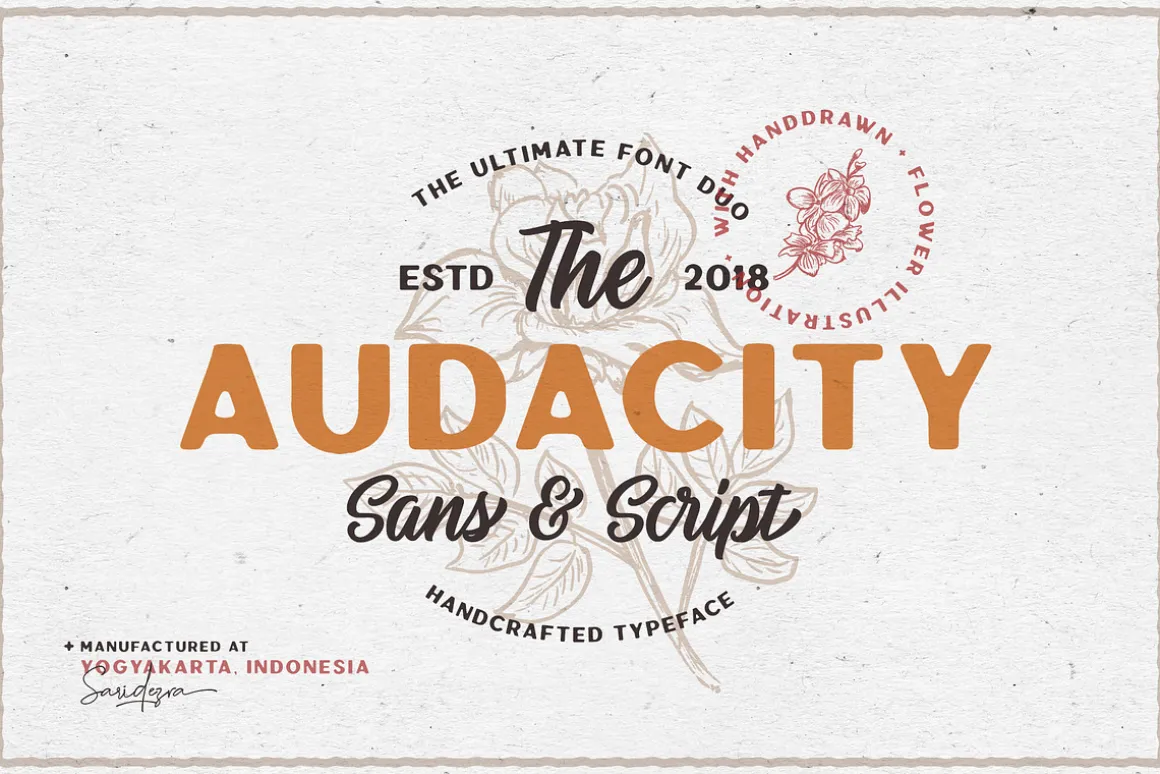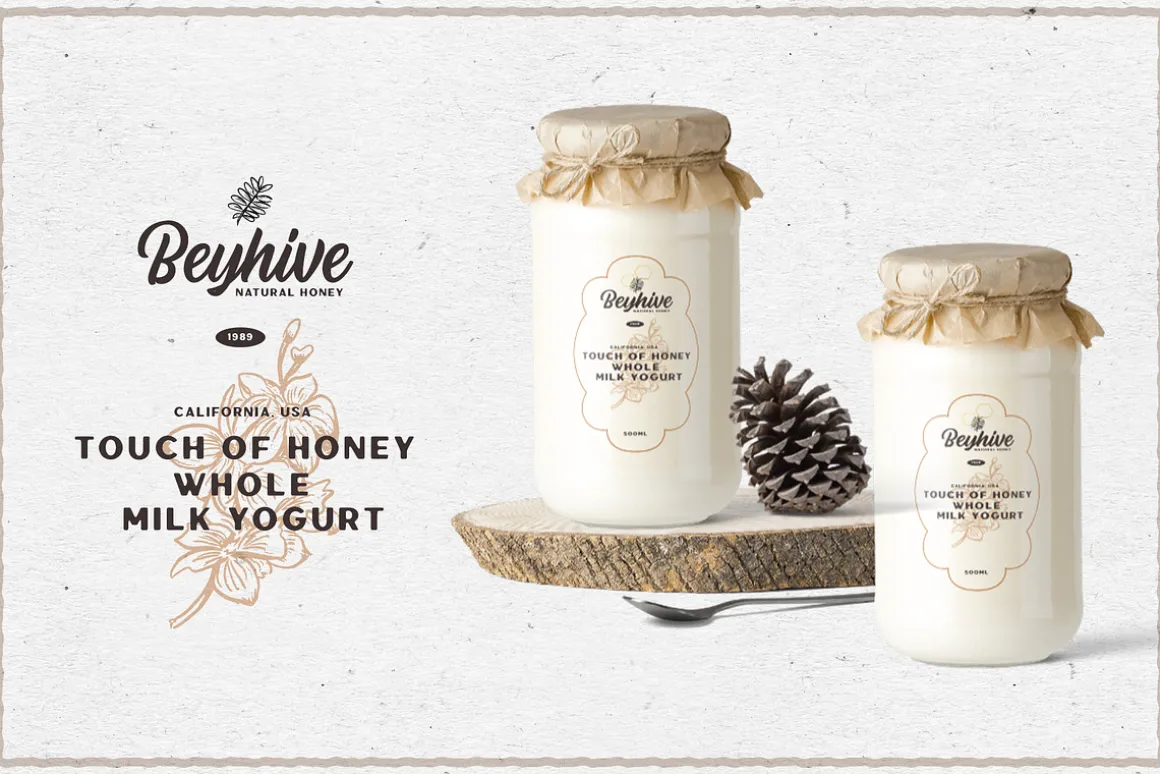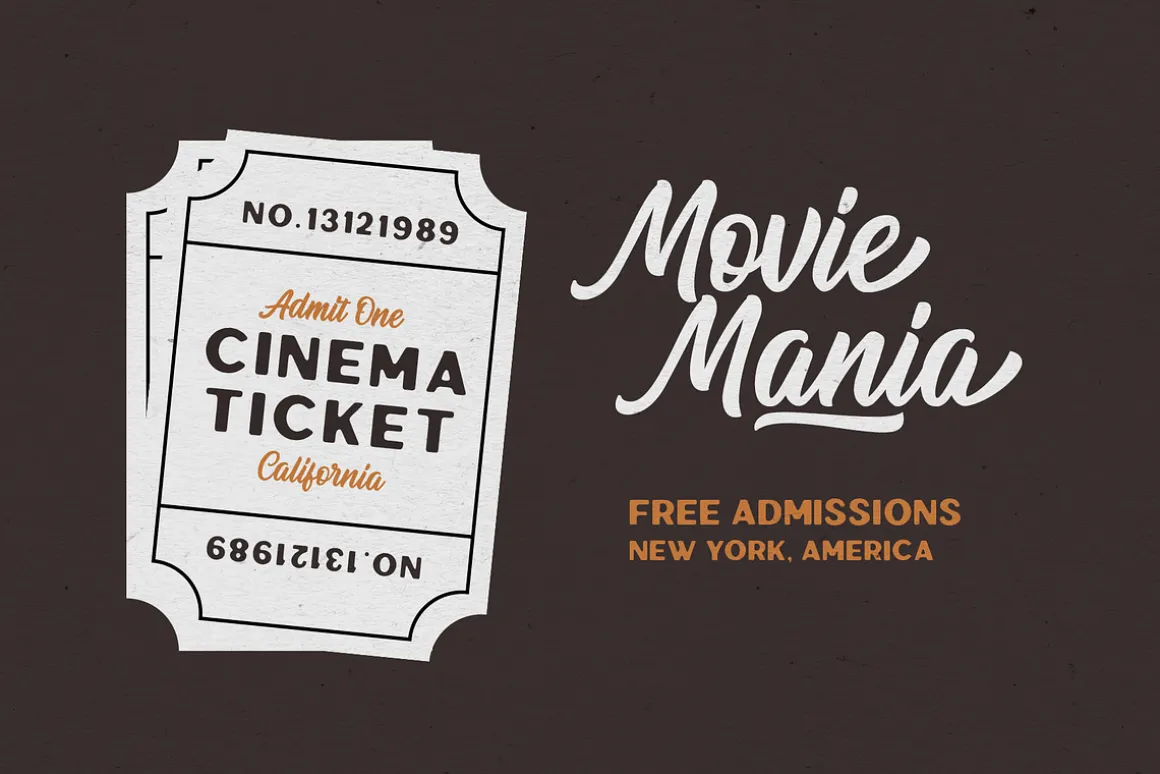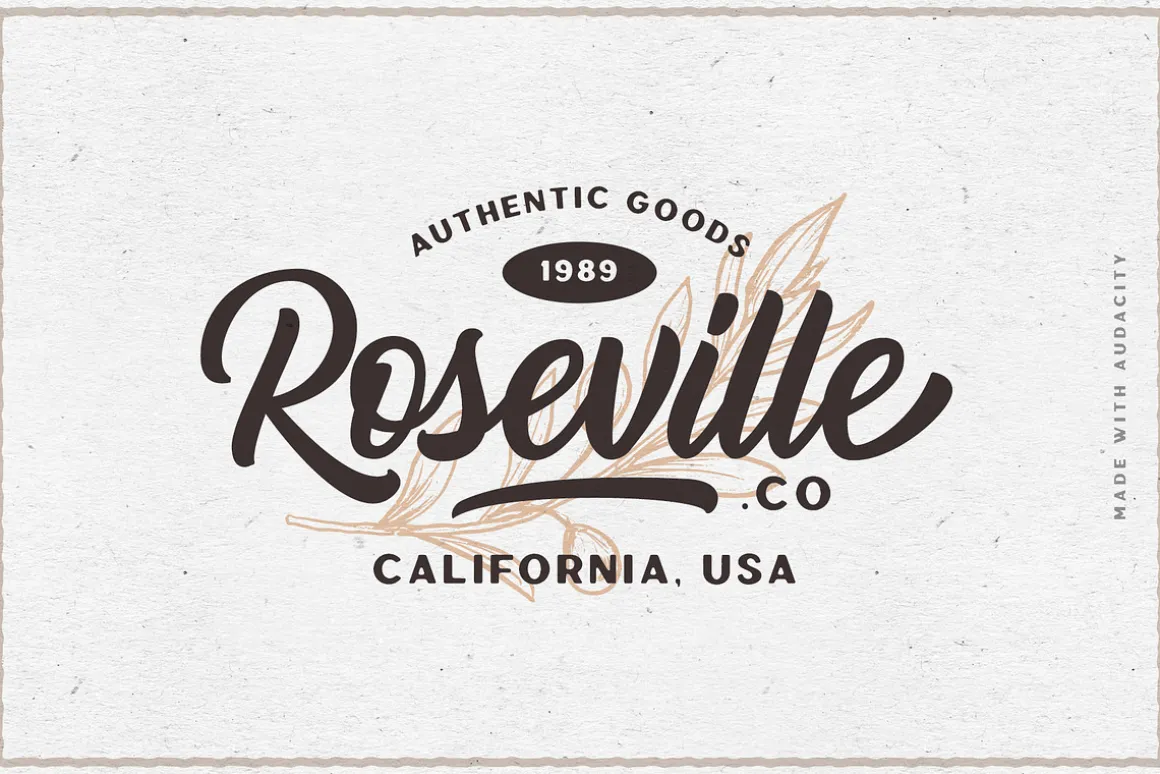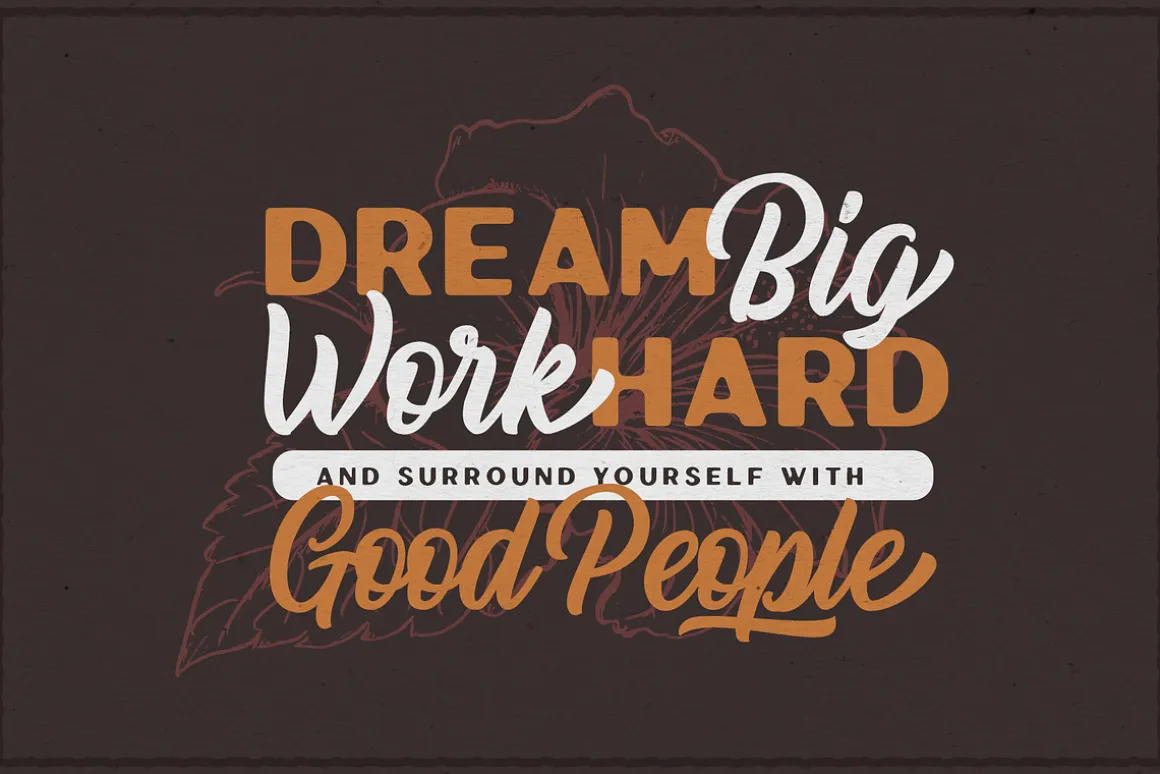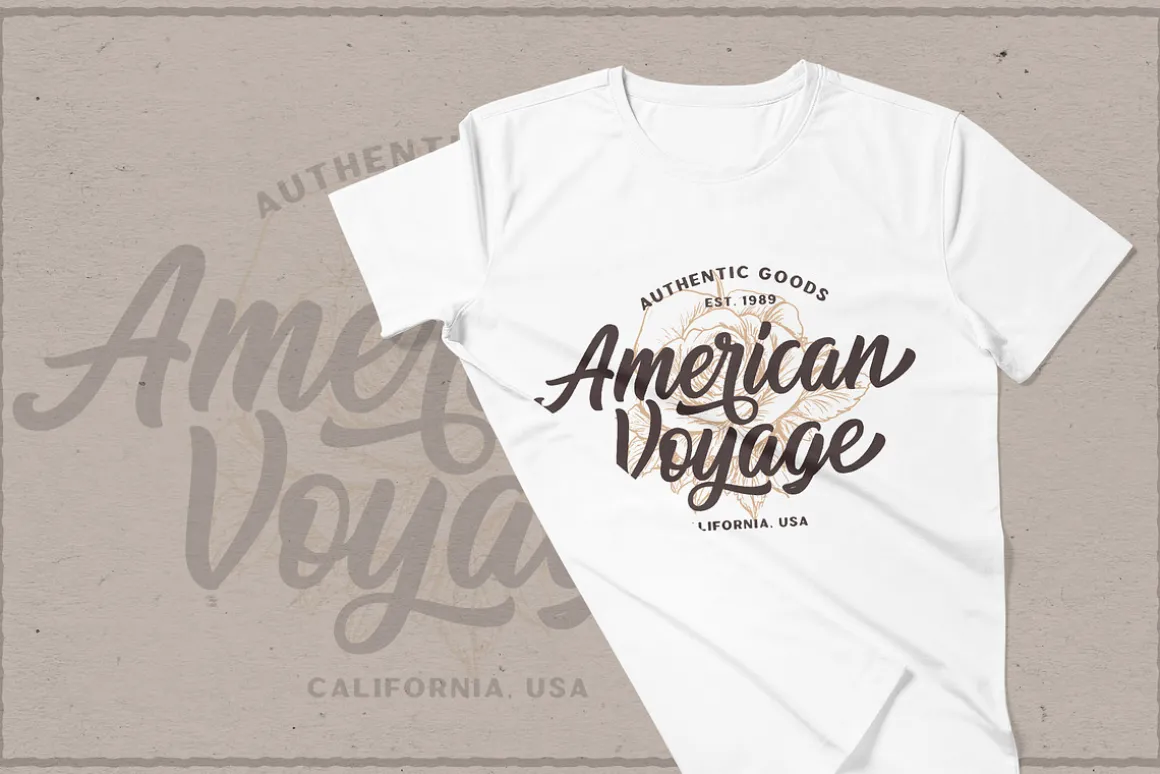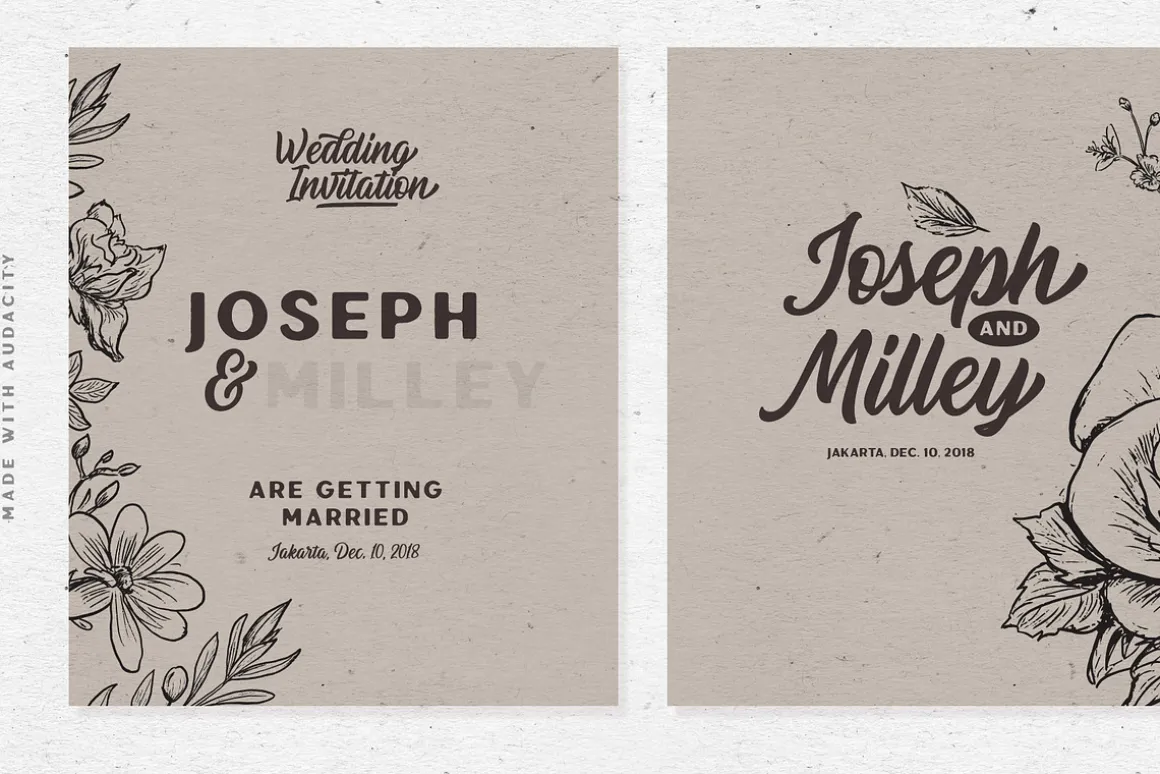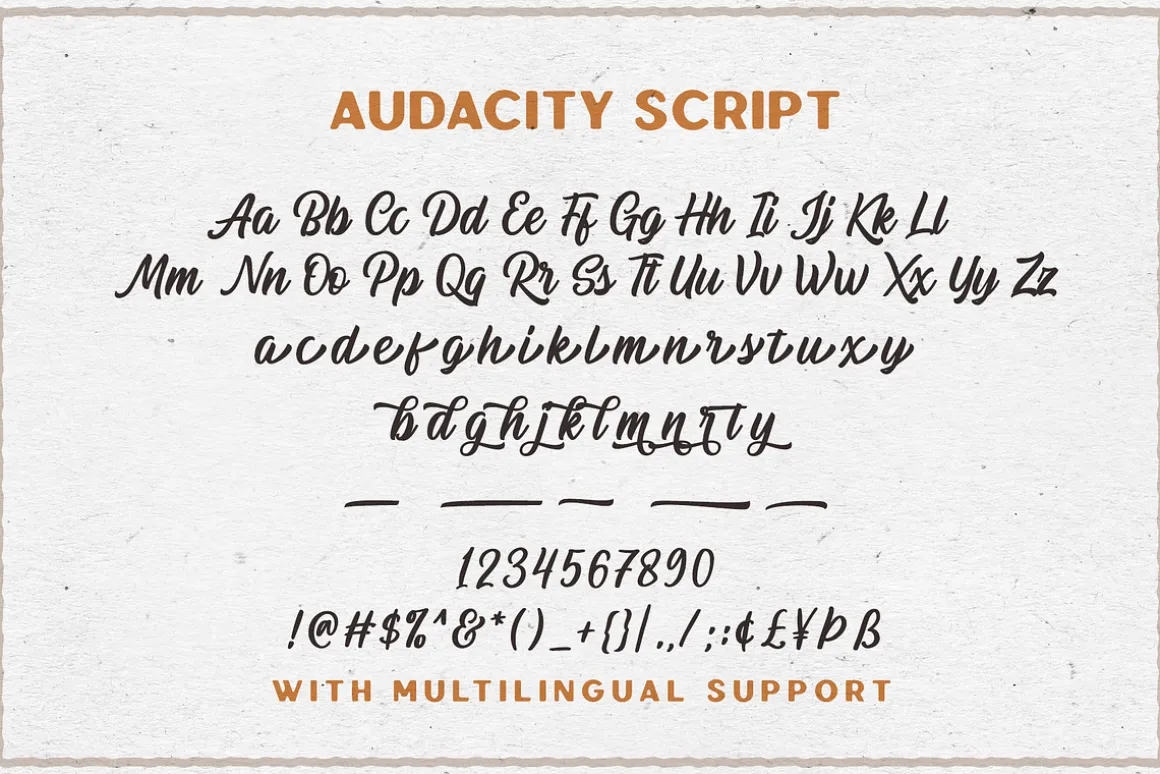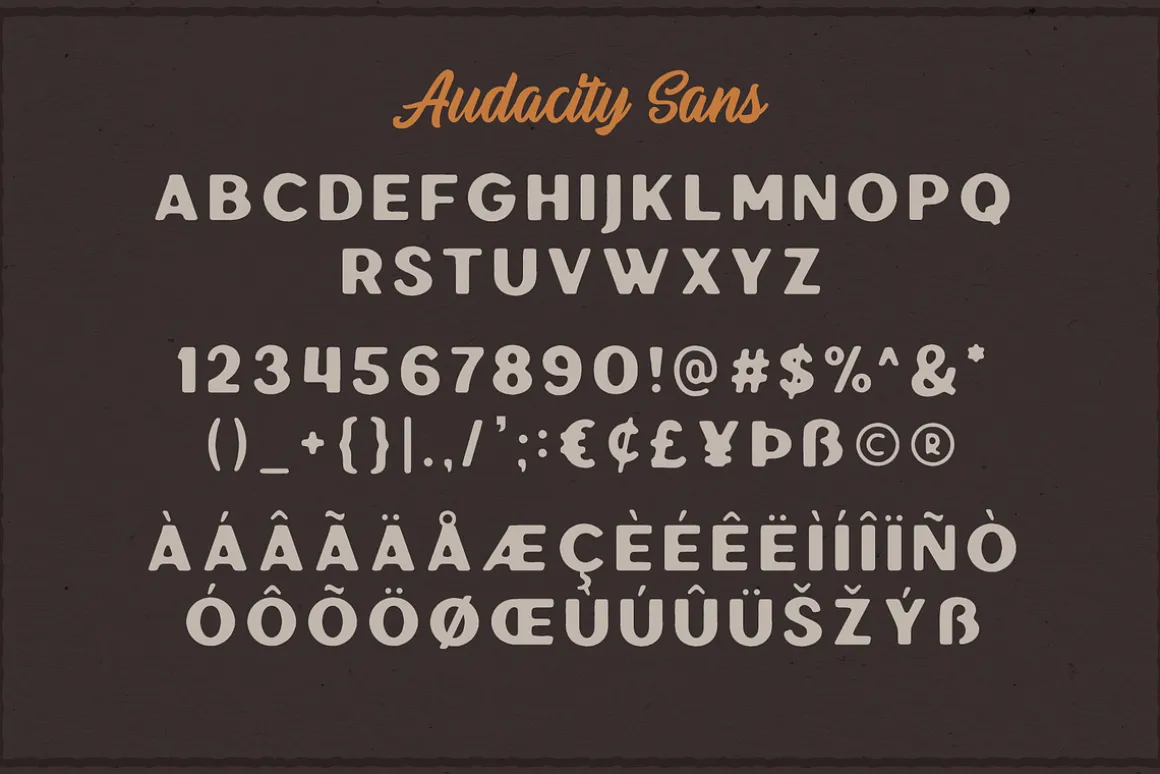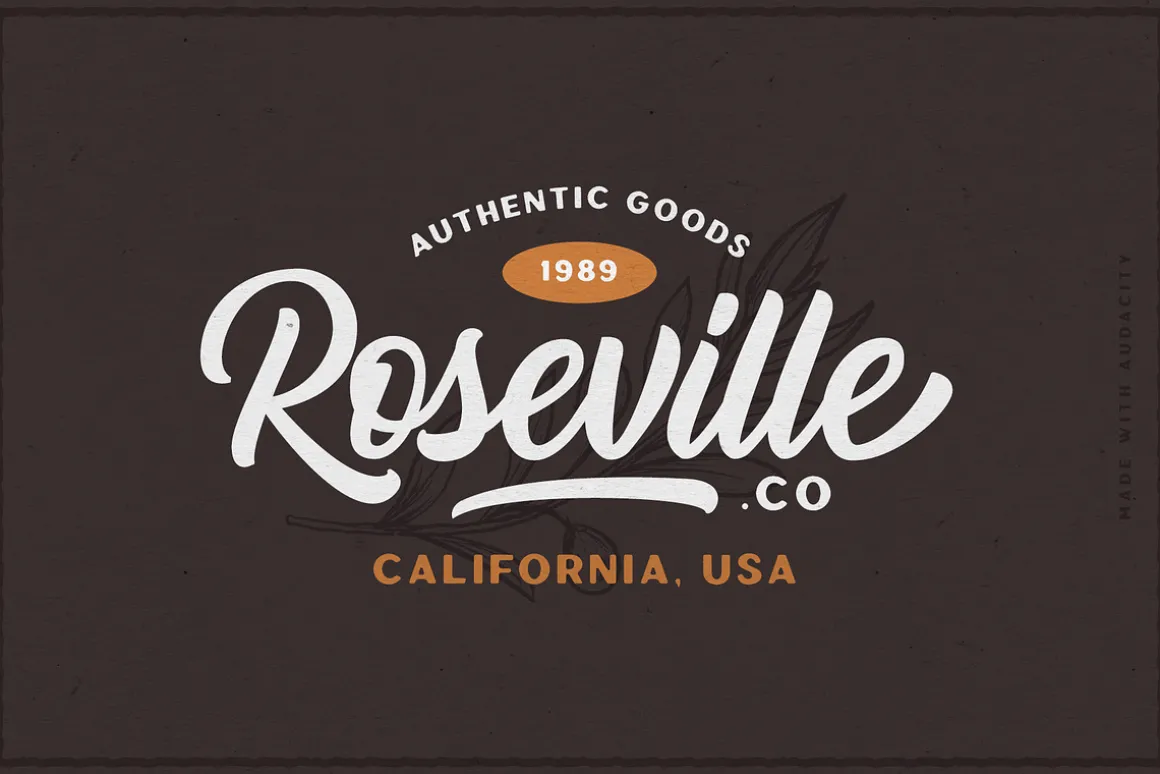
Audacity – Font Duo (+EXTRAS)
Audacity is my newest font duo. Contain two fonts, the rough sans and a free hand lettering script. You can use this font for every project. Suitable for branding logo, hand lettering, or apparel design. This ultimate font duo also come with FREE flower illustrations that you can use for background to make vintage looks design. This font duo also support multilingual, number and symbol, alternates, swash, and underline. Also this font already PUA Encoded.